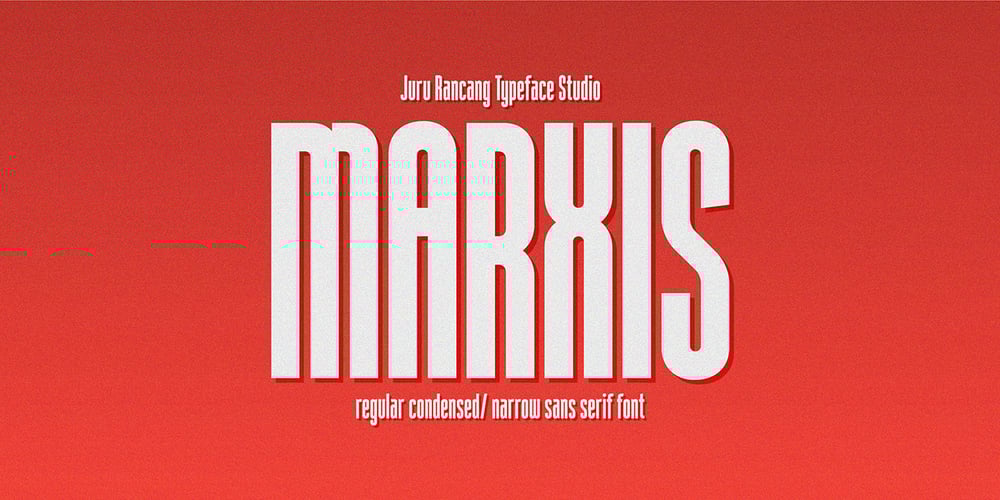
Marxis
Marxis font
Marxis Font Family was designed by Ihsan Khairul Lazuardi and published by Juru Rancang Studio. Marxis contains 1 styles and family package options. Introducing a retro condensed font called “Marxis”. Best font to use as a headline to bring back the propaganda era inspired by Soviet posters, movie titles and book covers. The letterforms are straight and condensed and come in 2 styles: uppercase and small caps with the ligatures. This font will suited well for titles, poster design, web design, branding and packaging works, illustrations, badges and other typography works. Thank you, I hope you like it as I do!